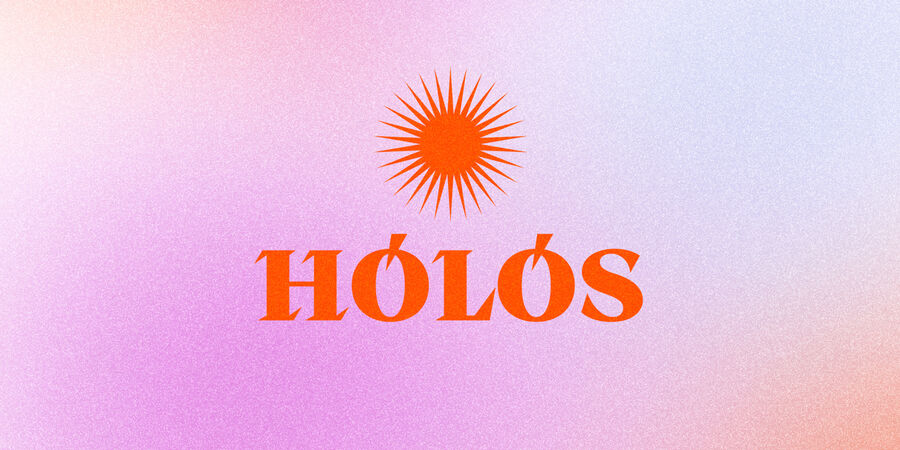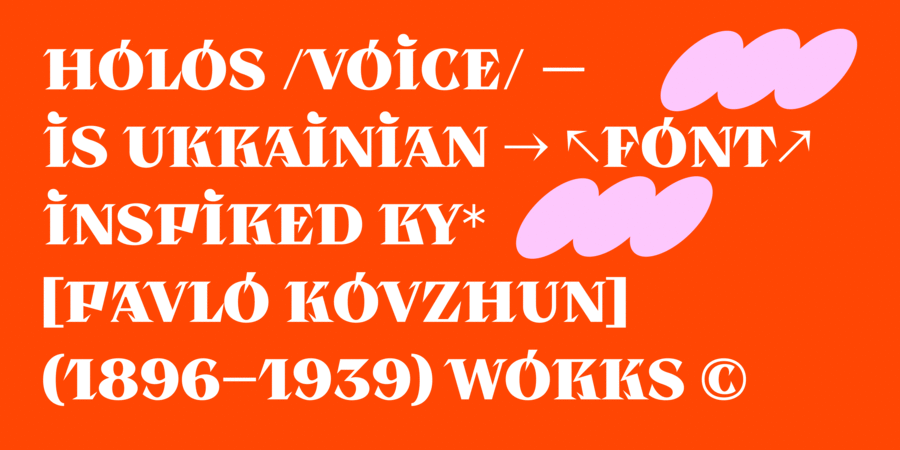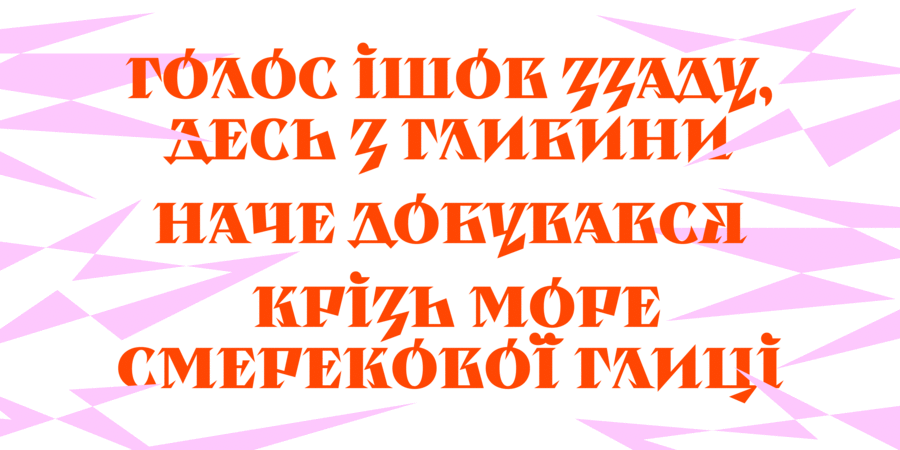
Holos (Voice) is a modern Ukrainian font, inspired by the lettering of the Ukrainian graphic artist of the 20s and 30s of the 20th century, Pavlo Kovzhun. Ukrainians have a very rich cultural heritage, which was suppressed and hidden for years. Our task as designers is to find and revive it. The font has sharp shapes and an authentic Ukrainian character. Holos does not support the russian language, and if you try, it will show a trident. Be heard with Holos! The typeface was designed by Alyona Korysta in 2023.
sharp, daring, original, distinctive, freewheeling, cutting, free, proud, witty, picturesque, artistic, historical, heavy, strong, solid, crisp, serious, rigid, iron, steel, stable, unusual, dynamic, convincing, important, self-assured, splashy, notable, bright, ambitious, experimental, active, expressive, high-quality, voiced, rude, crystal, thorny, strange, extravagant, motivating, creative, powerful, loud, intrusive, dangerous, extremal, risky, aggressive, expressing, impudent, radical, pretentious, handicraft, significant, severe, interesting, shocking, broken, revolutionary, explosive, yelling, political, authoritative, formidable, manly, military, monumental, tough, angular, chopped, brutal, game, quick-tempered, incendiary